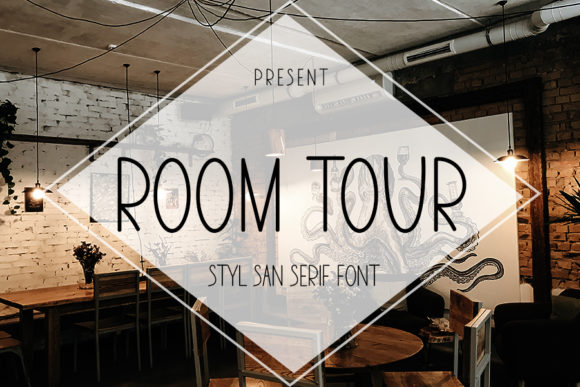
Immerse yourself in the realm of captivating typography with Room Tour Font, a sans serif masterpiece that exudes elegance and innovation. Experience the visual allure of this tall and slender font, meticulously crafted to enhance the visual appeal of your creative endeavors. With its ability to elevate ordinary designs into captivating masterpieces, Room Tour Font is an essential tool for discerning designers seeking to leave an indelible mark on the digital canvas.
Step into the realm of boundless creativity, where Room Tour Font awaits to unlock a world of possibilities. Its thin and tall letters dance across the screen, inviting you to explore new horizons of visual expression. From sleek and contemporary website designs to captivating social media graphics, Room Tour Font seamlessly adapts to your vision, transforming ordinary concepts into captivating realities.
Unleash your imagination and embrace the versatility of Room Tour Font. Its inherent adaptability makes it the perfect companion for a myriad of projects, effortlessly blending into diverse design aesthetics. Whether you're crafting visually stunning logos, eye-catching posters, or immersive presentations, Room Tour Font will effortlessly elevate your creative endeavors, leaving a lasting impression on your audience.
Indulge in the visual symphony of Room Tour Font, where every letterform is a carefully orchestrated note, harmonizing to create a typographic masterpiece. Its tall and slender characters exude an air of sophistication, adding a touch of elegance to your designs. Experience the sheer joy of creating with Room Tour Font, as its graceful lines and impeccable spacing guide you towards visual excellence.
Discover the boundless potential of Room Tour Font, a typographic gem that will ignite your creative spark and transform your designs into captivating works of art. Its versatility knows no bounds, effortlessly adapting to diverse design styles and mediums. With Room Tour Font as your creative ally, you'll embark on a journey of visual exploration, leaving a trail of stunning designs that captivate and inspire.